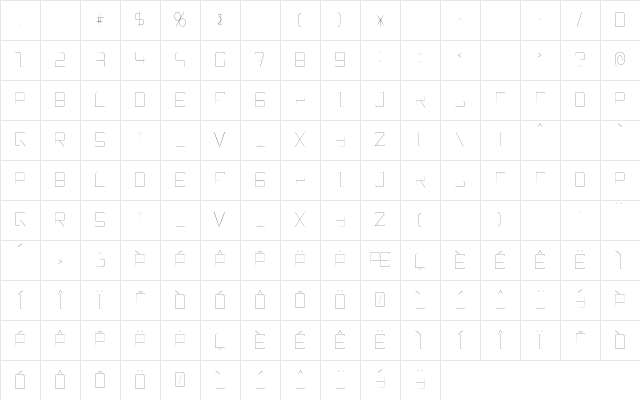
EpicenterThin Regular Free Font
EpicenterThin Regular
Foundry: Xerographer Fonts
Designer: Max Infeld Xerographer Fonts
Complete EpicenterThin Regular glyph index. Displaying only characters natively supported by EpicenterThin Regular font.
Design Context for EpicenterThin
EpicenterThin is a composed and adaptable typeface that performs quietly and consistently across a wide range of design contexts. Its slender proportions lend an understated elegance to any composition.